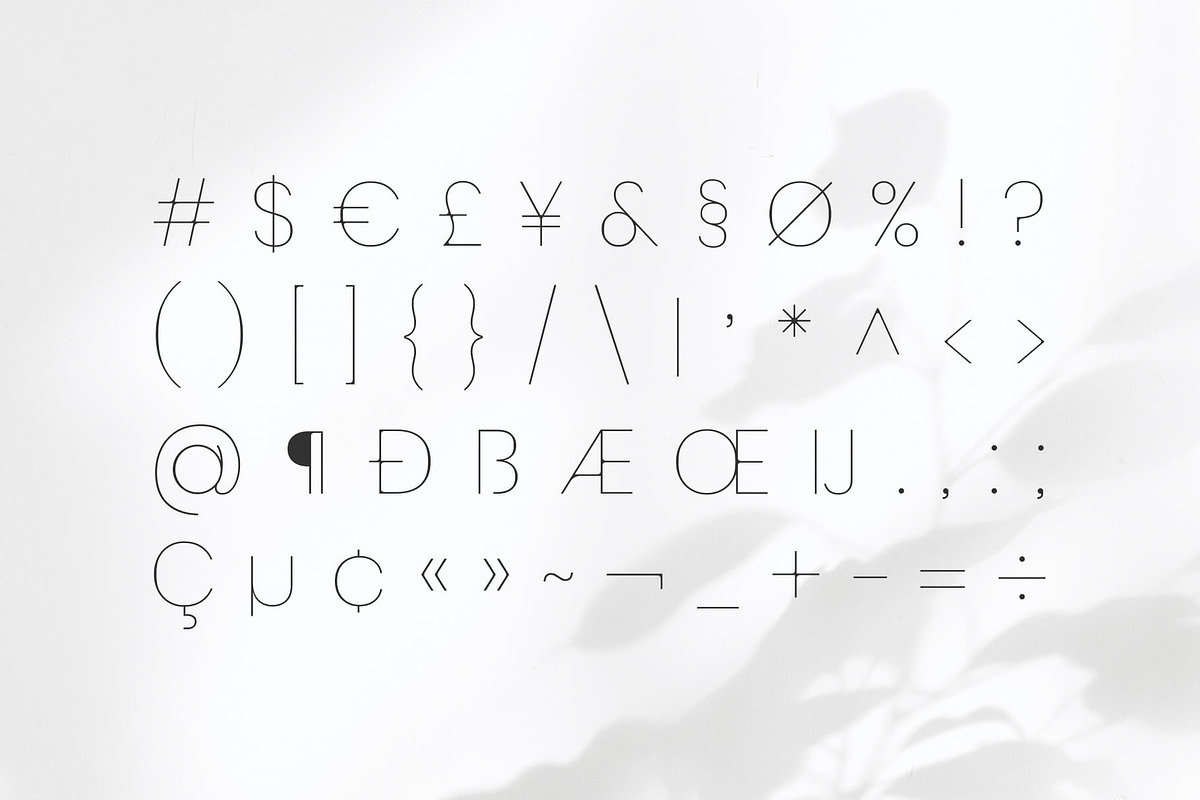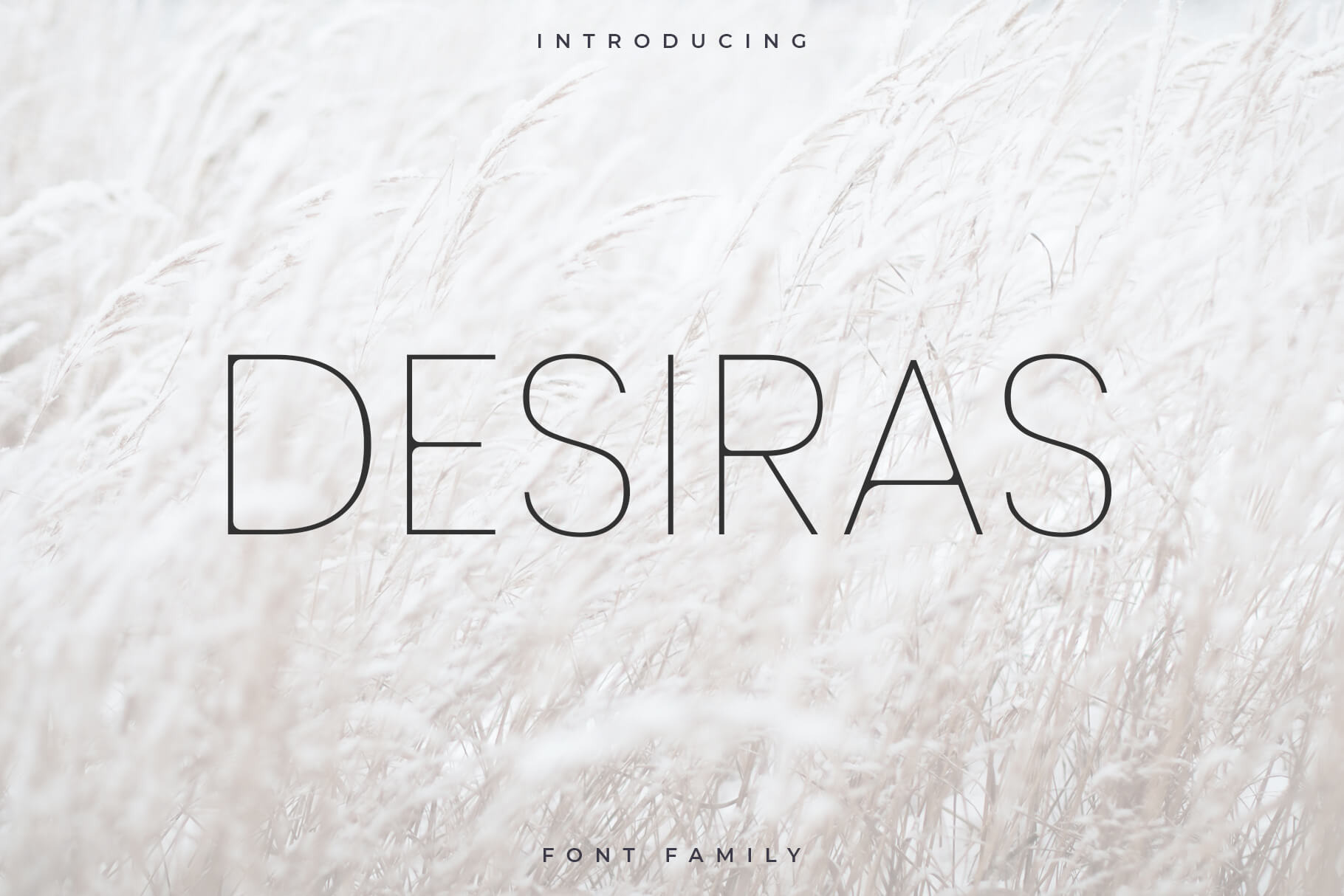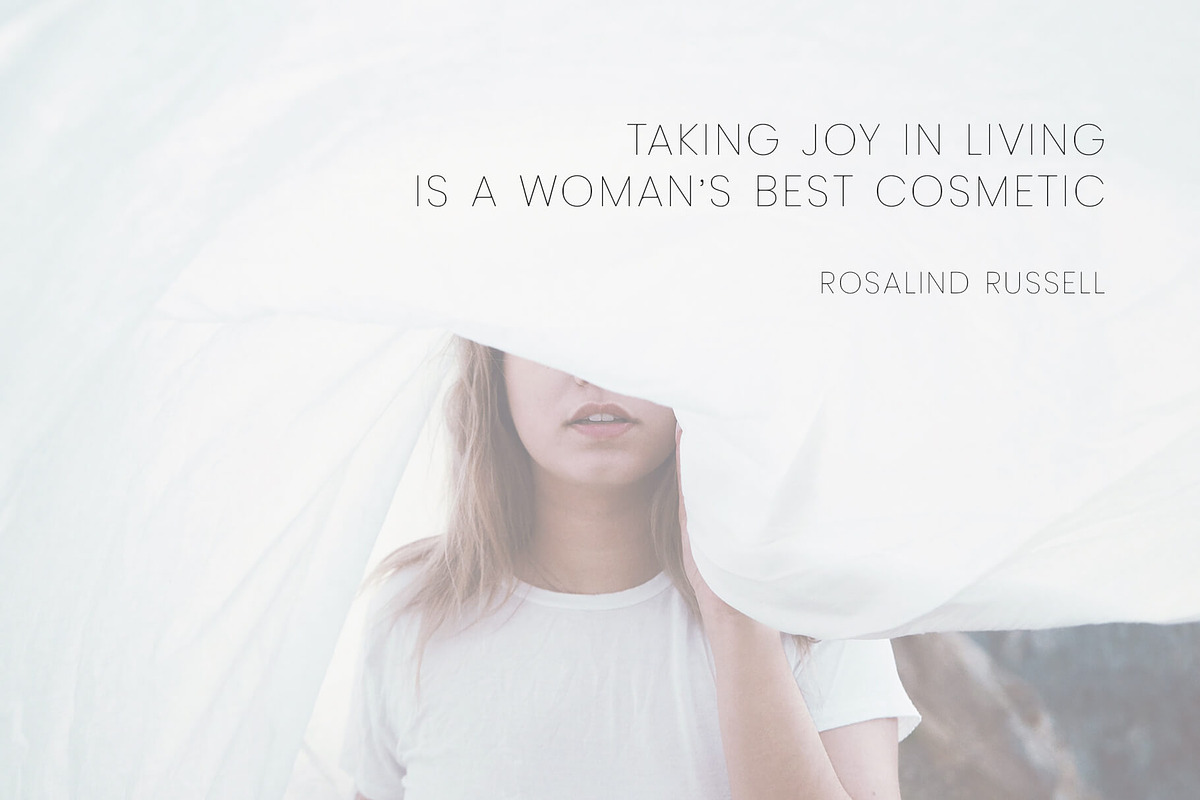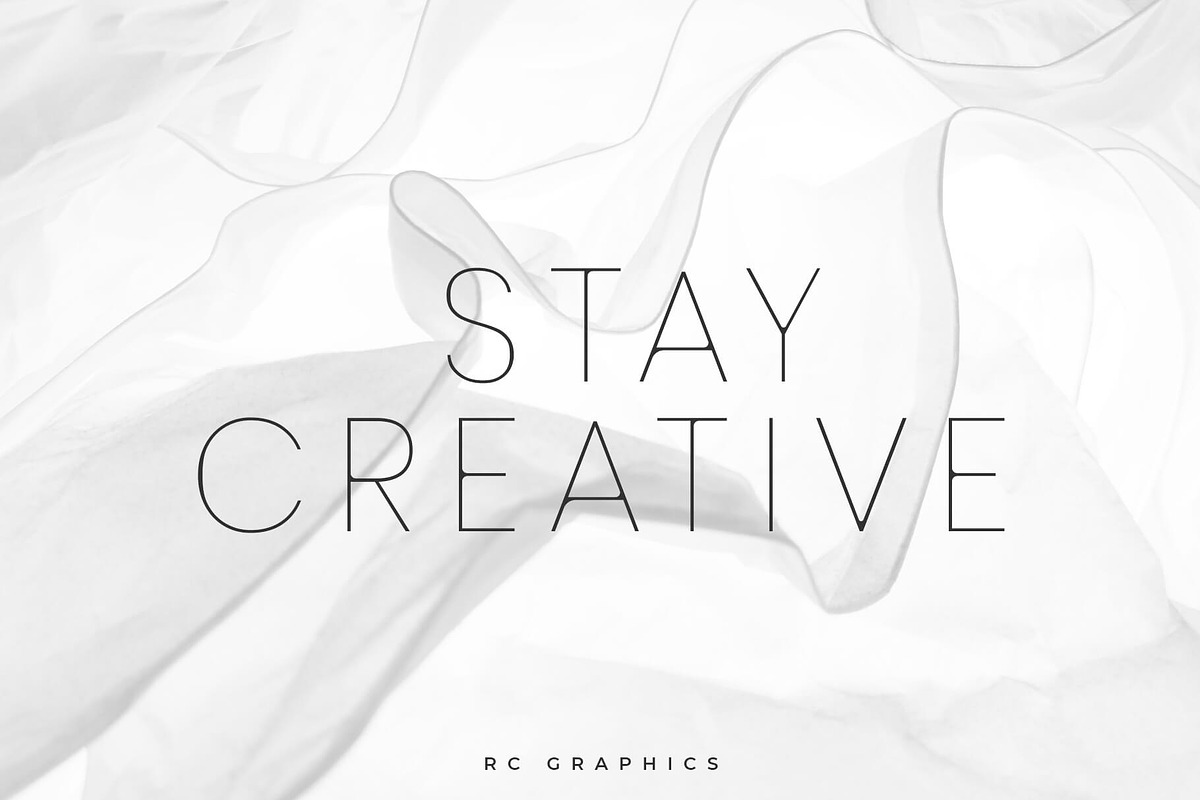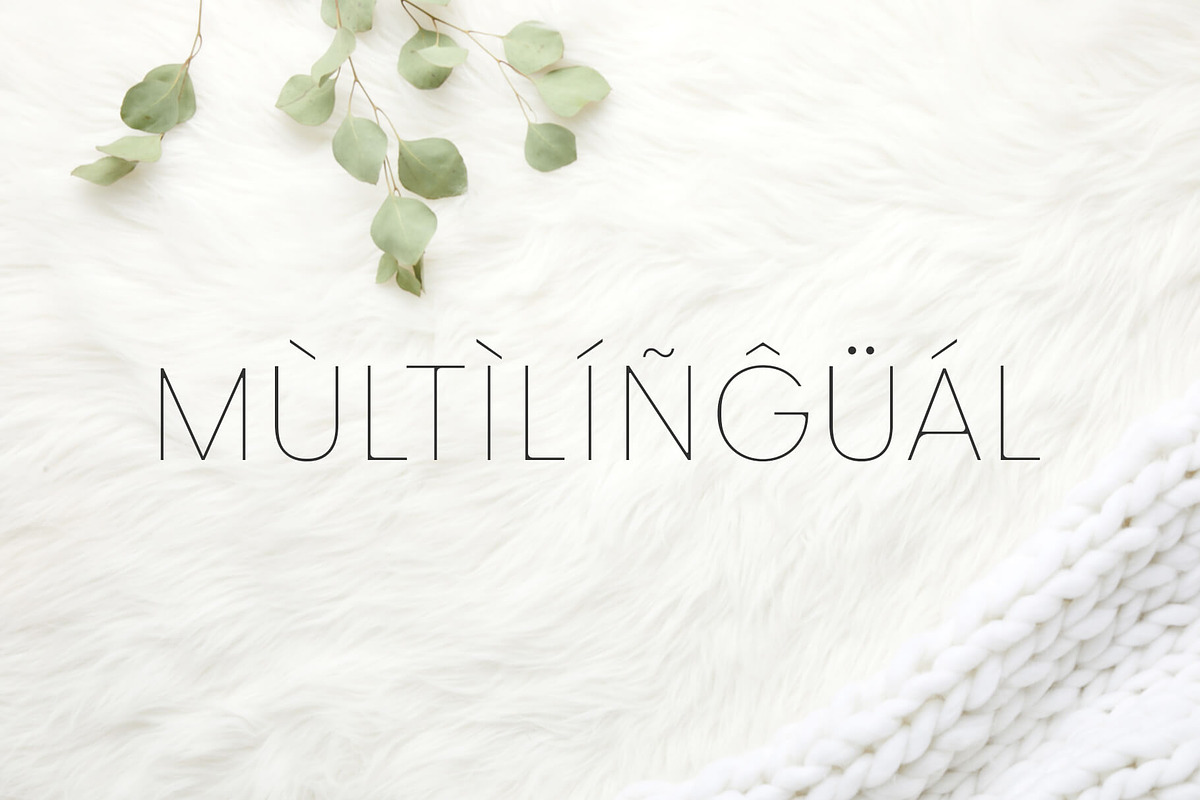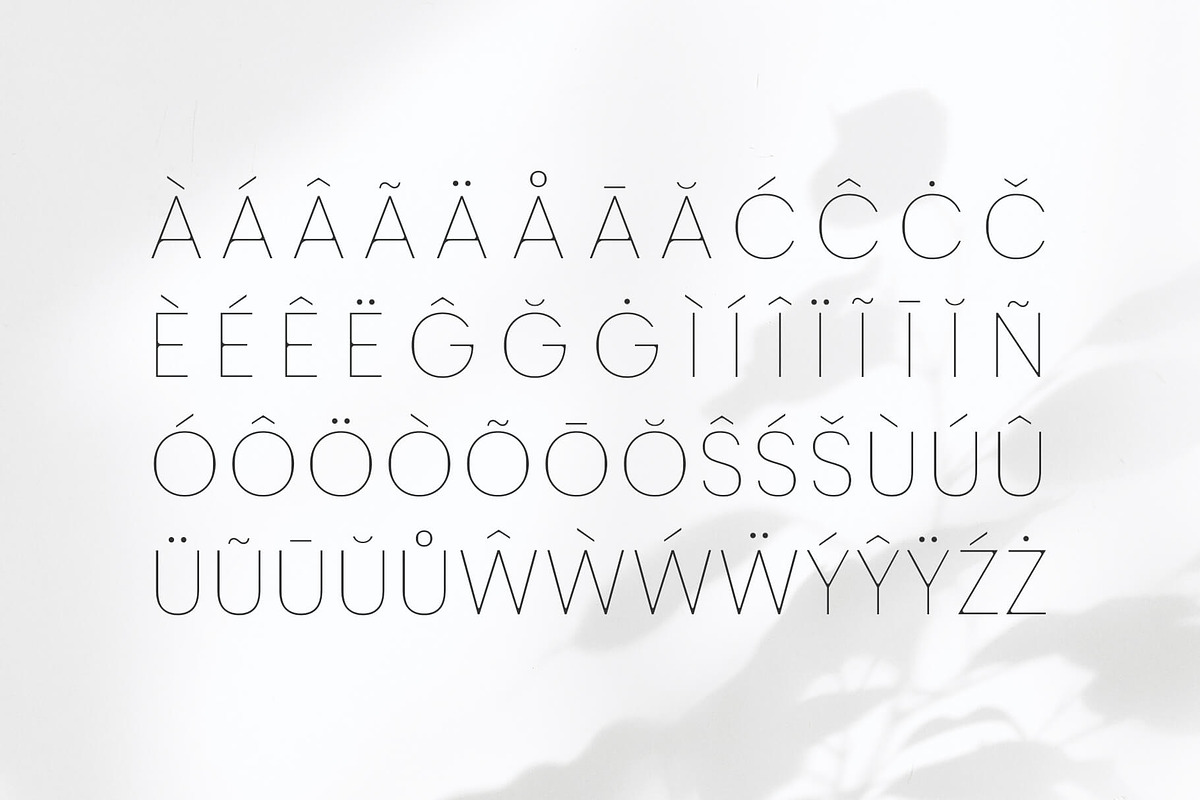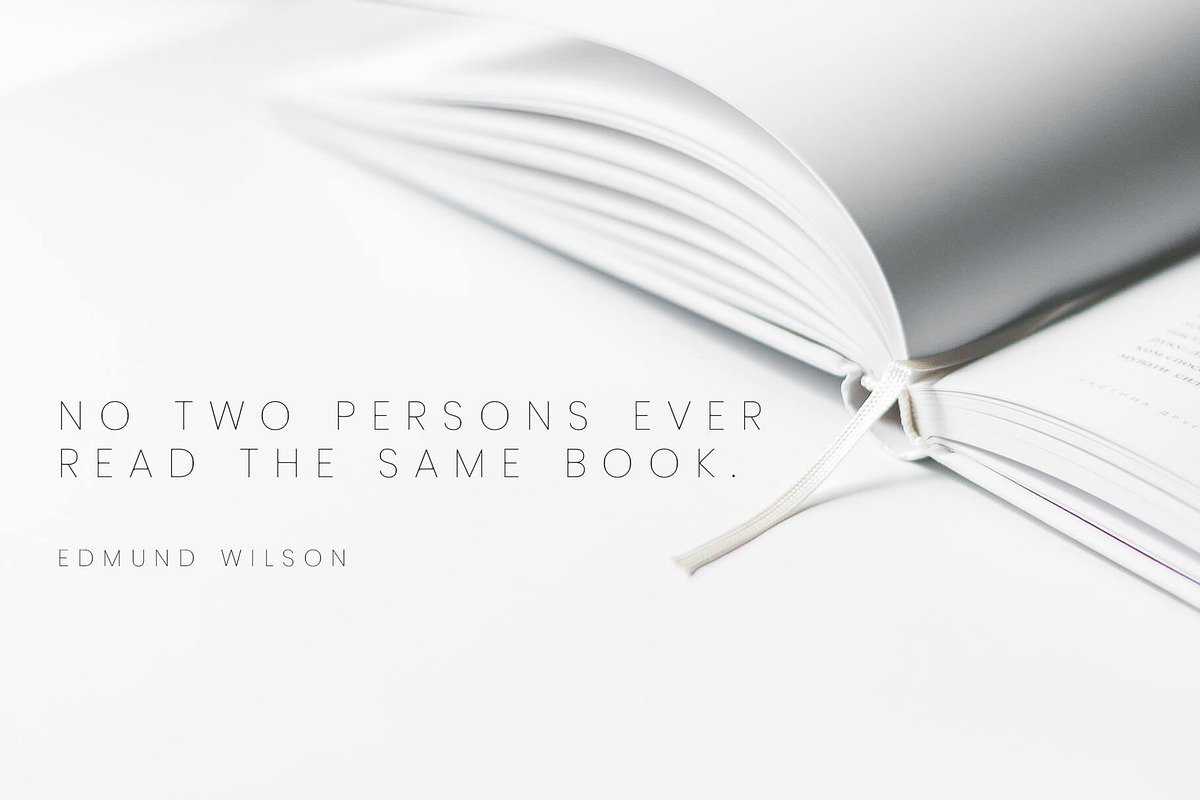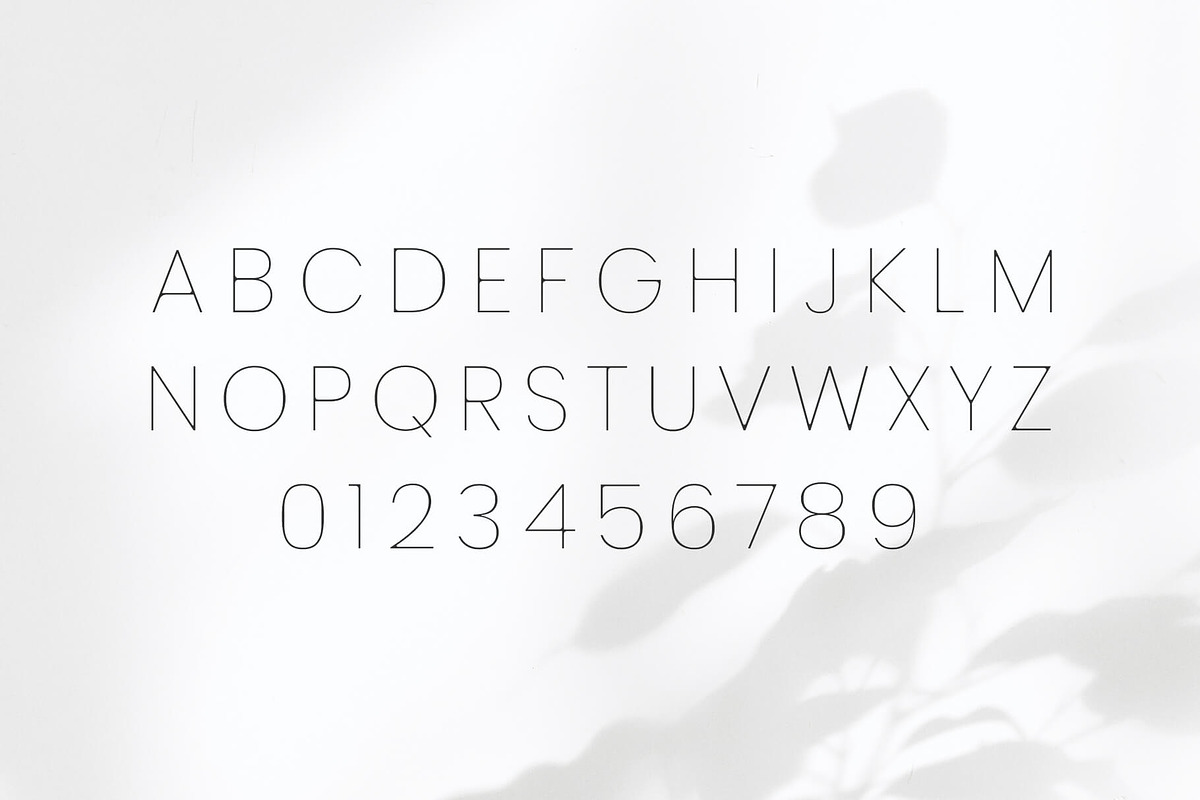
Desiras Font Family - Sans Serif
Desiras is a minimalistic, timeless, and stunning all caps sans serif font that looks beautiful in layouts, headers, web, and many other contexts! With four different weights, it’s perfect for magazine layouts, invitations or any other project you’re working on!
- Uppercase letters
- Multilingual (Foreign language characters)